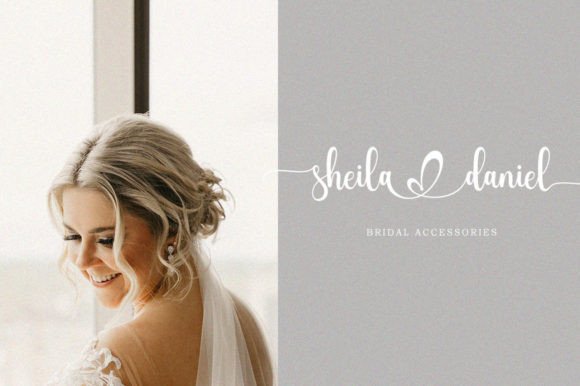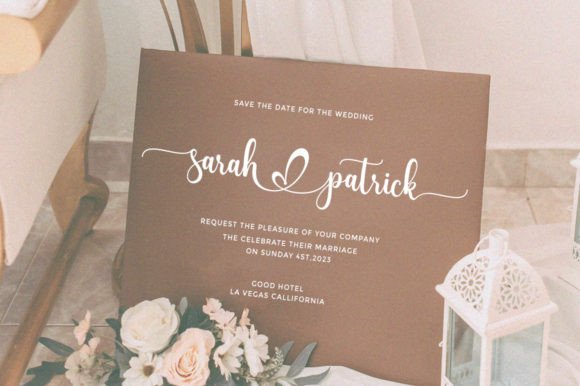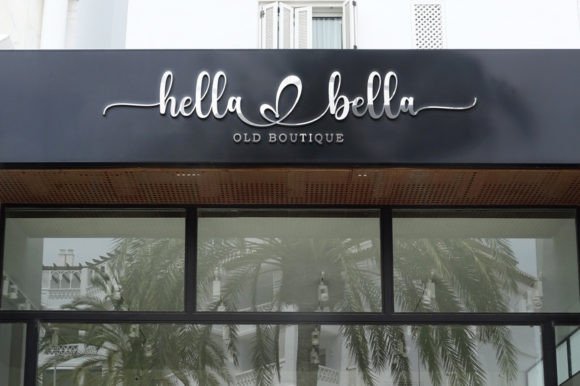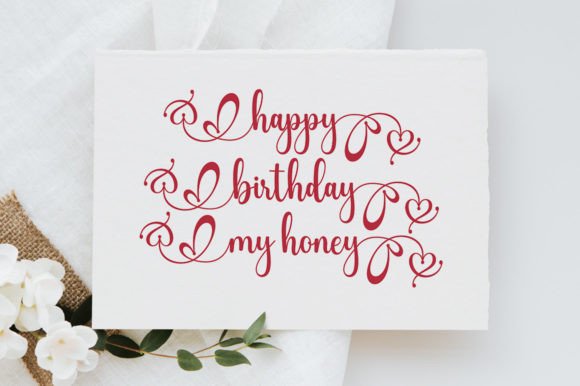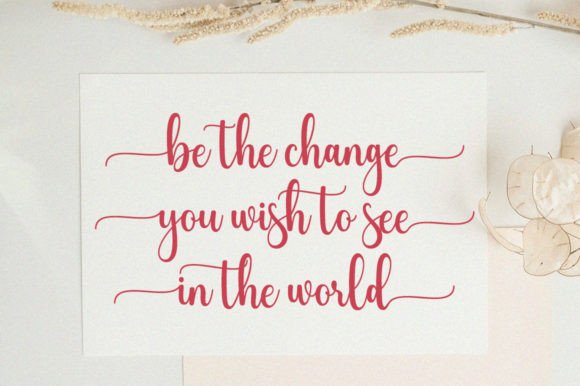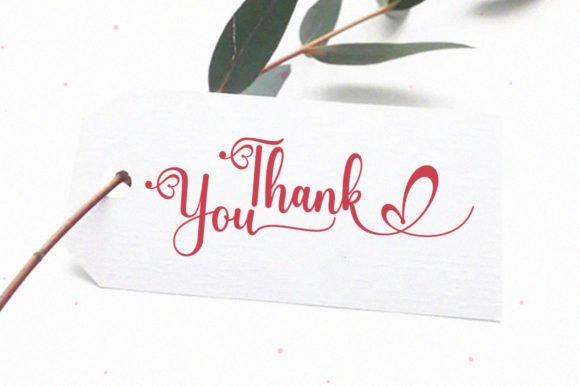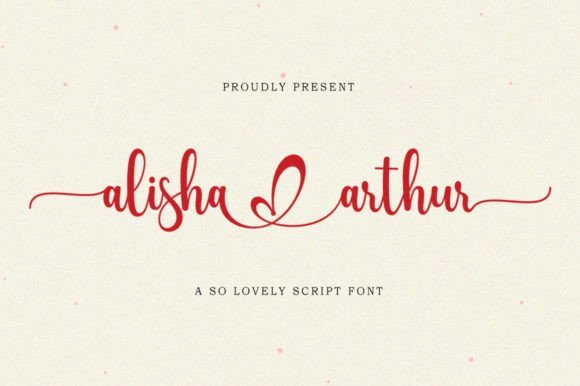
The Elegance of Alisha Arthur Font
Have you ever been browsing through a beautifully designed wedding invitation and felt an instant sense of wonder and charm? The delicate swirls, the flowing curves, the subtle elegance – it’s a moment when you know you’ve stumbled upon something truly special. For designers, this feeling is what drives us to create and inspire, and it’s exactly what the Alisha Arthur Font embodies.
This stunning script font is a masterclass in sophistication and refinement, making it the perfect choice for high-end branding, luxurious weddings, and other exclusive designs that demand a touch of luxury. With its slim and flowing strokes, Alisha Arthur Font exudes a sense of movement and elegance, effortlessly capturing the essence of refinement and charm.
As a PUA-encoded font, Alisha Arthur Font offers unparalleled flexibility, allowing designers to access all the delightful glyphs and swashes with ease. This means that you can unlock the full potential of this elegant font and create truly unforgettable designs that leave a lasting impression.
Alisha Arthur Font Key Features
- Font Family: Alisha Arthur is a script font, designed to resemble handwritten text.
- Unique Characteristics: The font features a unique, flowing script style with subtle irregularities, giving it a natural, handwritten feel.
Alisha Arthur Font Review
I recently had the chance to work with the Alisha Arthur Font, and I must say it’s a beautiful addition to any design project. Here are some of the things I liked about it:
- ✨ Unique style: The Alisha Arthur Font has a distinct and elegant style that sets it apart from other fonts. It’s perfect for designs that need a touch of sophistication.
- ✨ Good legibility: The font is well-designed and easy to read, making it suitable for body text as well as headings.
- ✨ Customizable: The font comes in various weights and styles, allowing designers to customize it to fit their project’s needs.
- ⚠️ Limited language support: The font doesn’t support all languages, which may be a drawback for projects that require multilingual support.
- ⚠️ Limited font sizes: While the font is customizable, it’s not ideal for very large or very small font sizes, which may affect its legibility.
Overall, I’m impressed with the Alisha Arthur Font’s unique style and good legibility. While it has some limitations, it’s a great choice for designs that require a touch of elegance. With some careful planning and customization, it can be a valuable addition to any design project.
The Alisha Arthur font is a versatile and elegant font suitable for various design applications, including:
- Beauty and wellness packaging